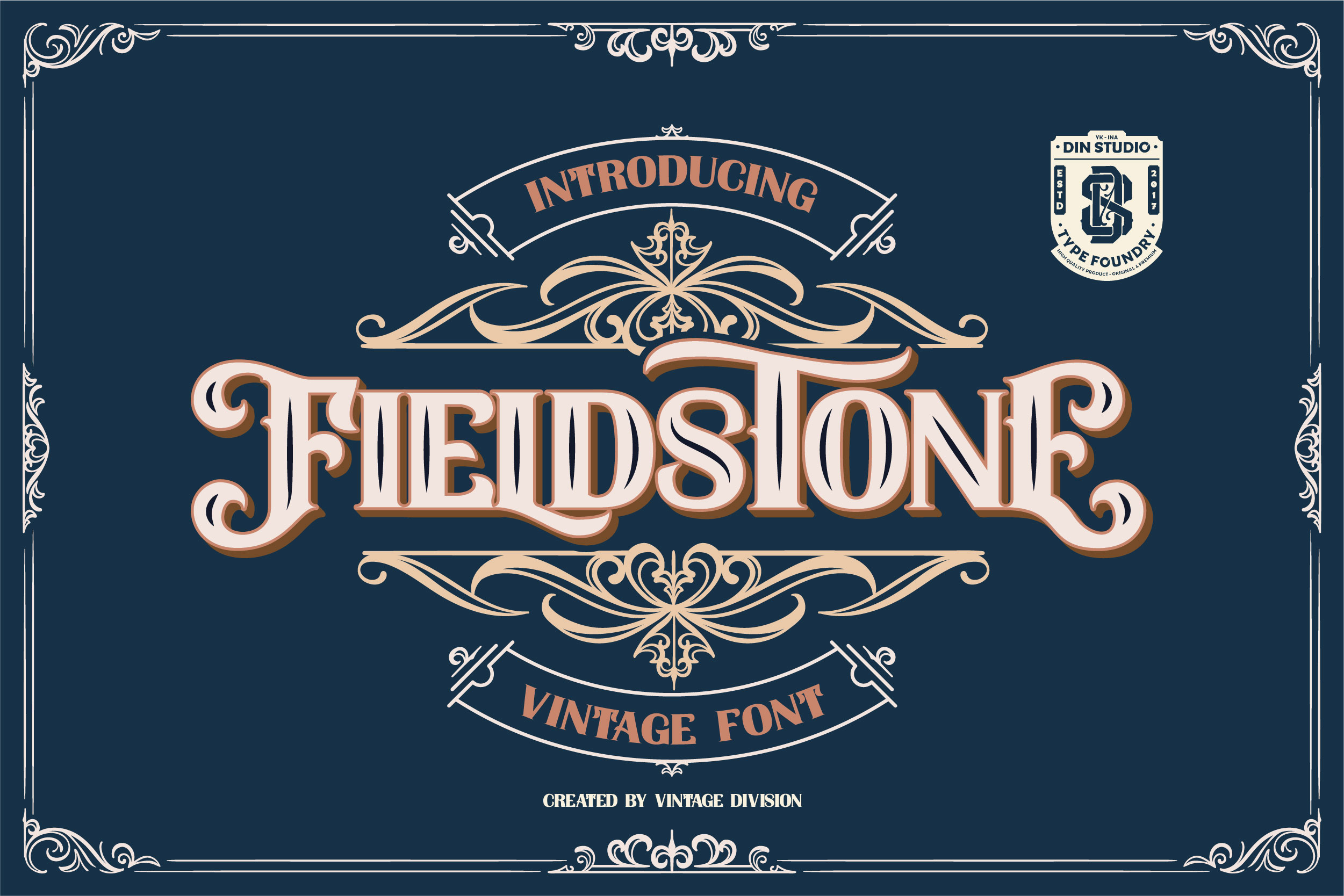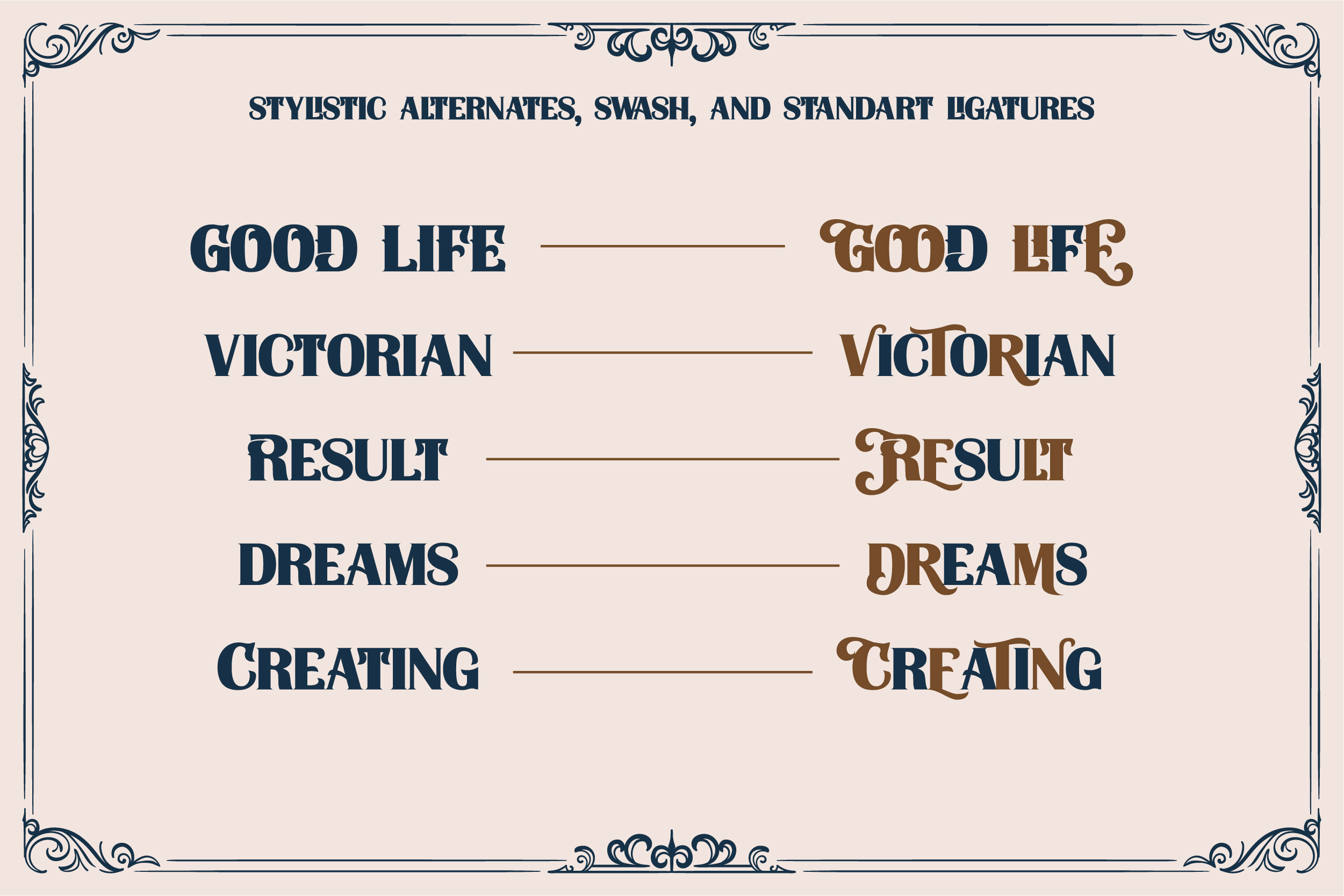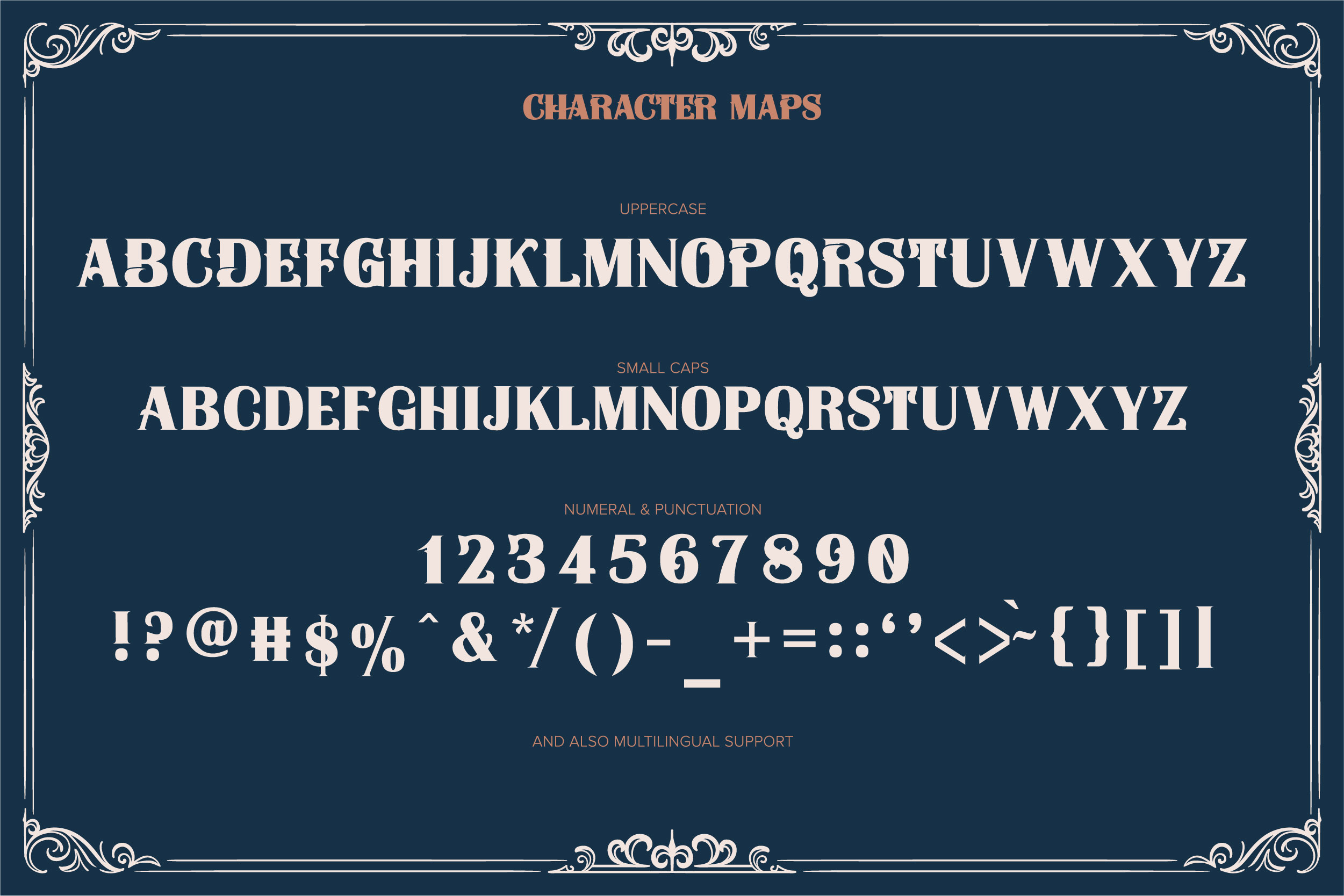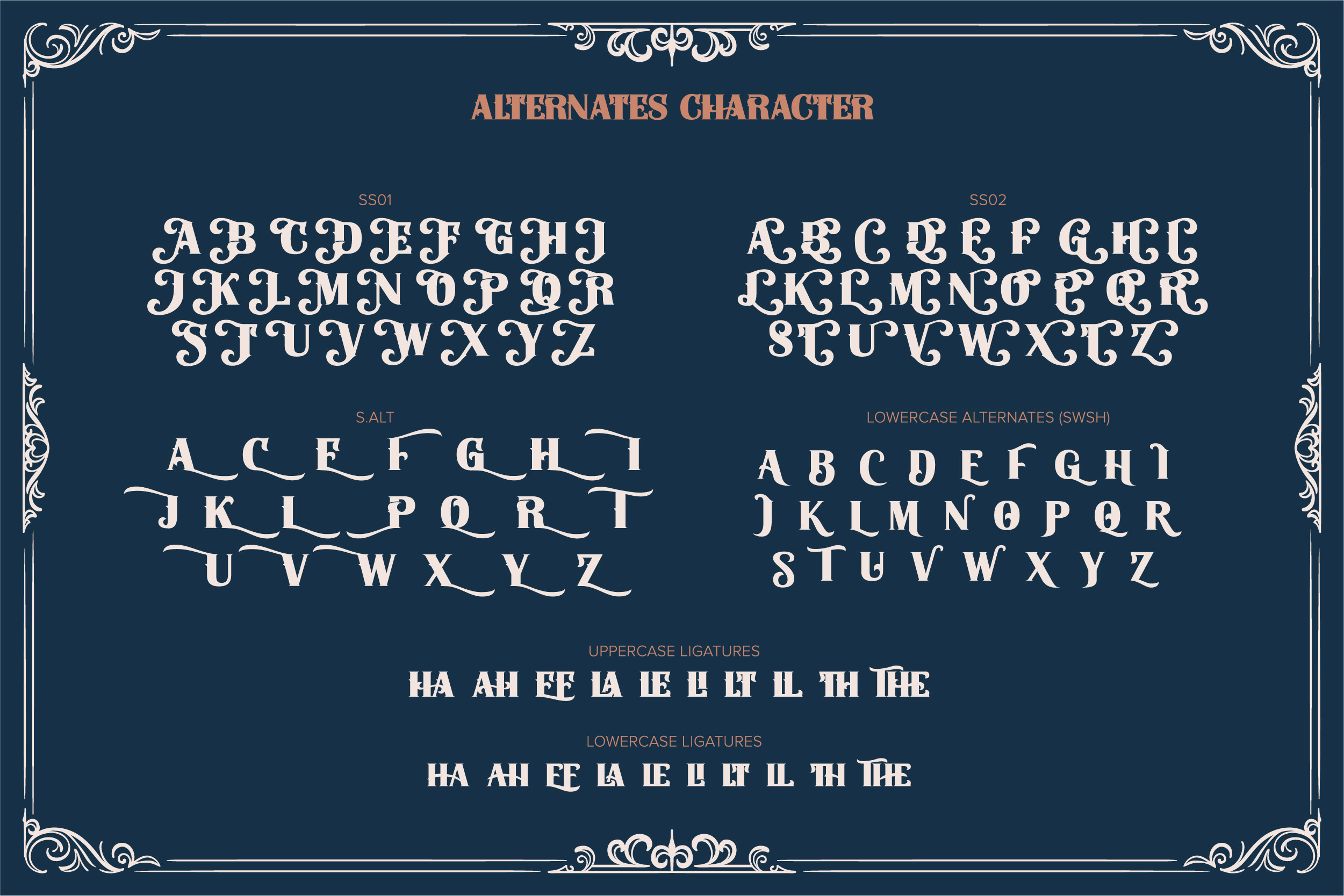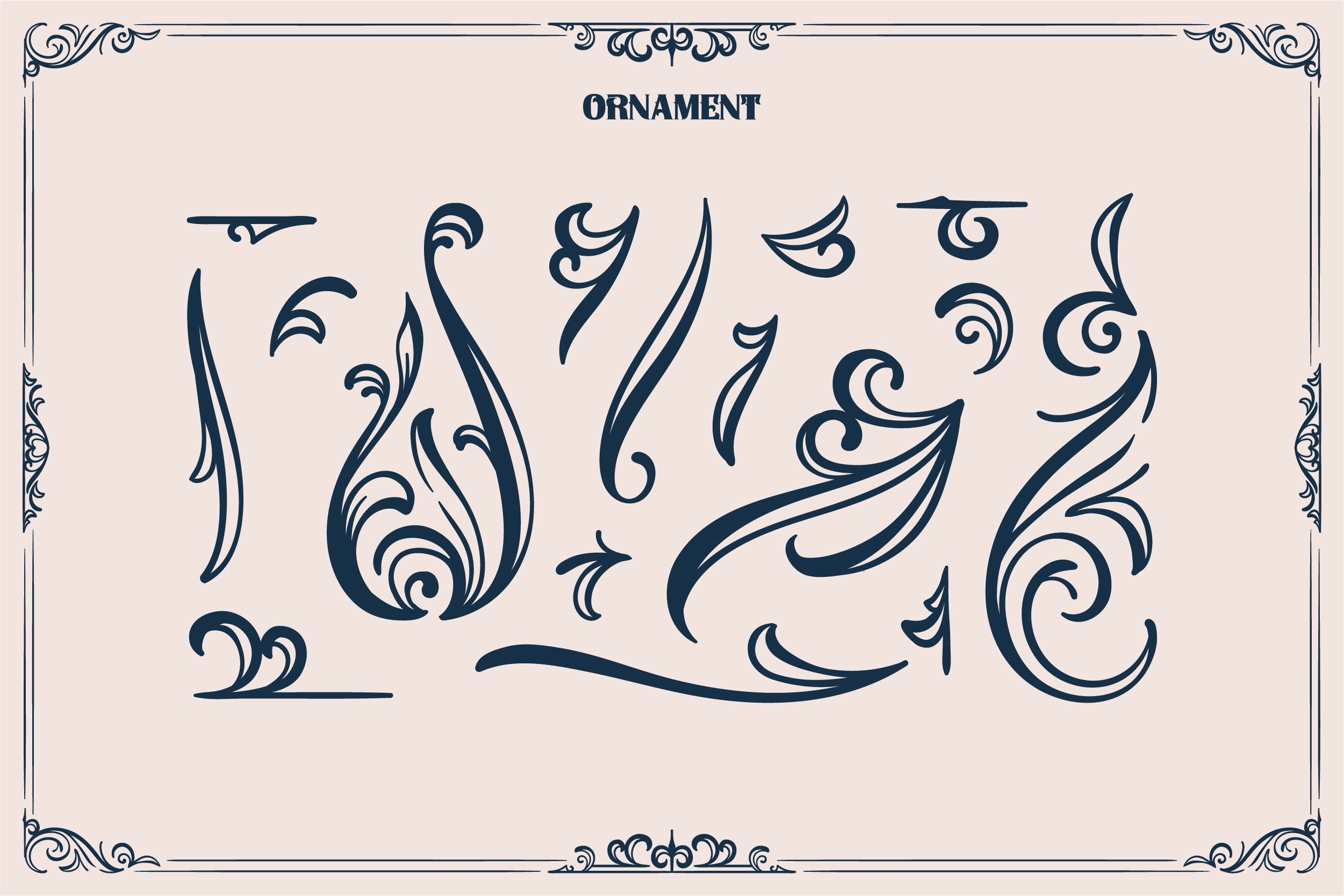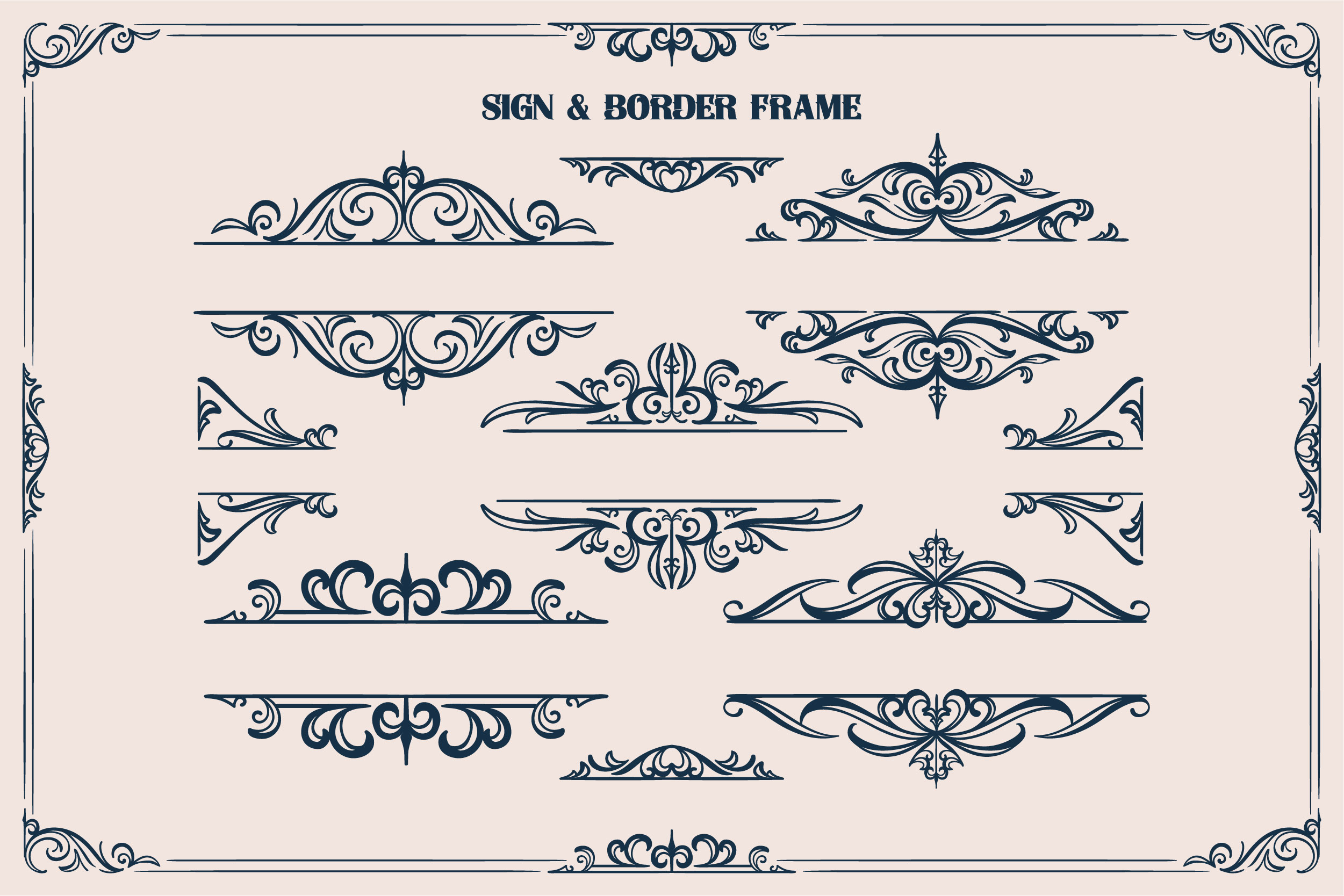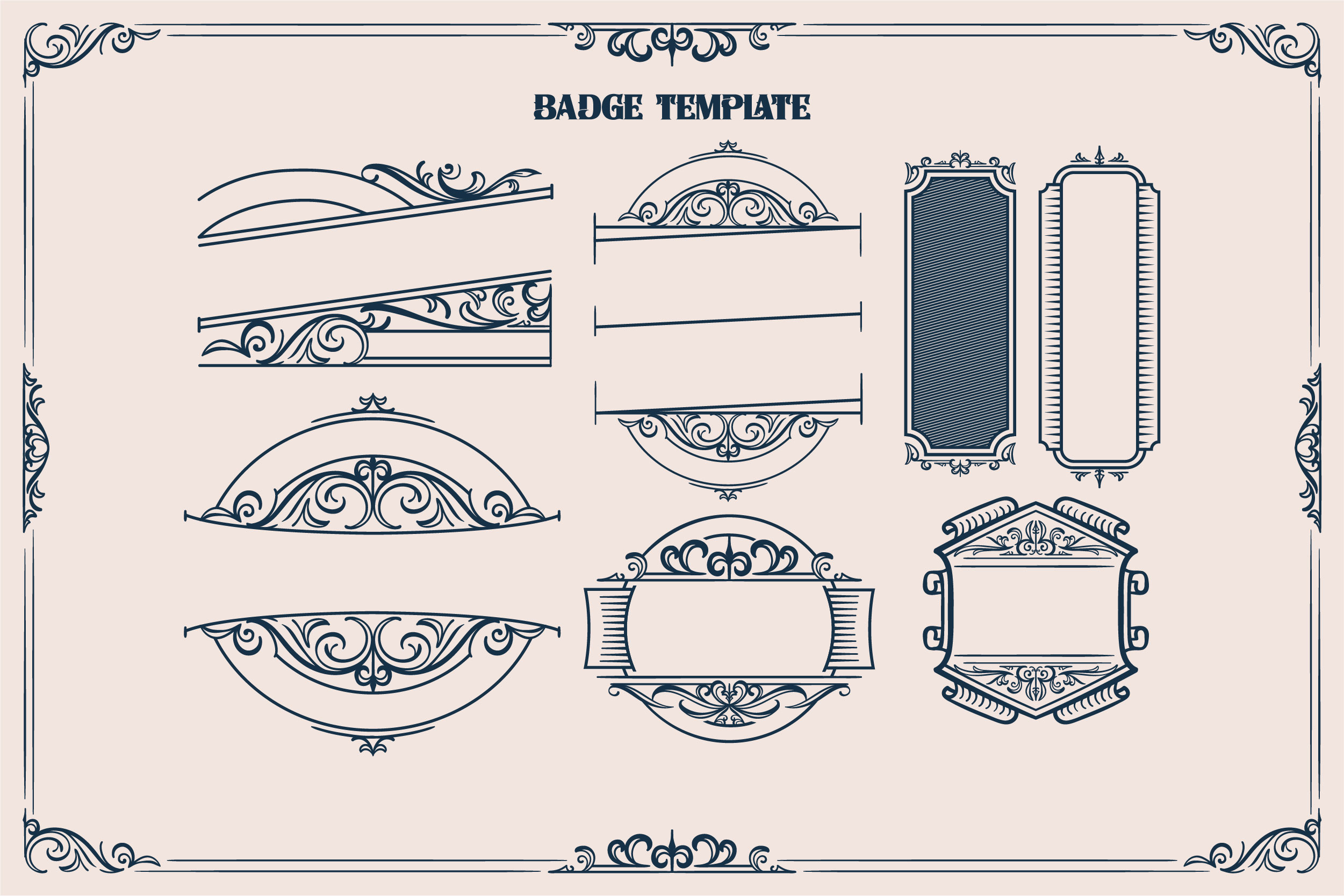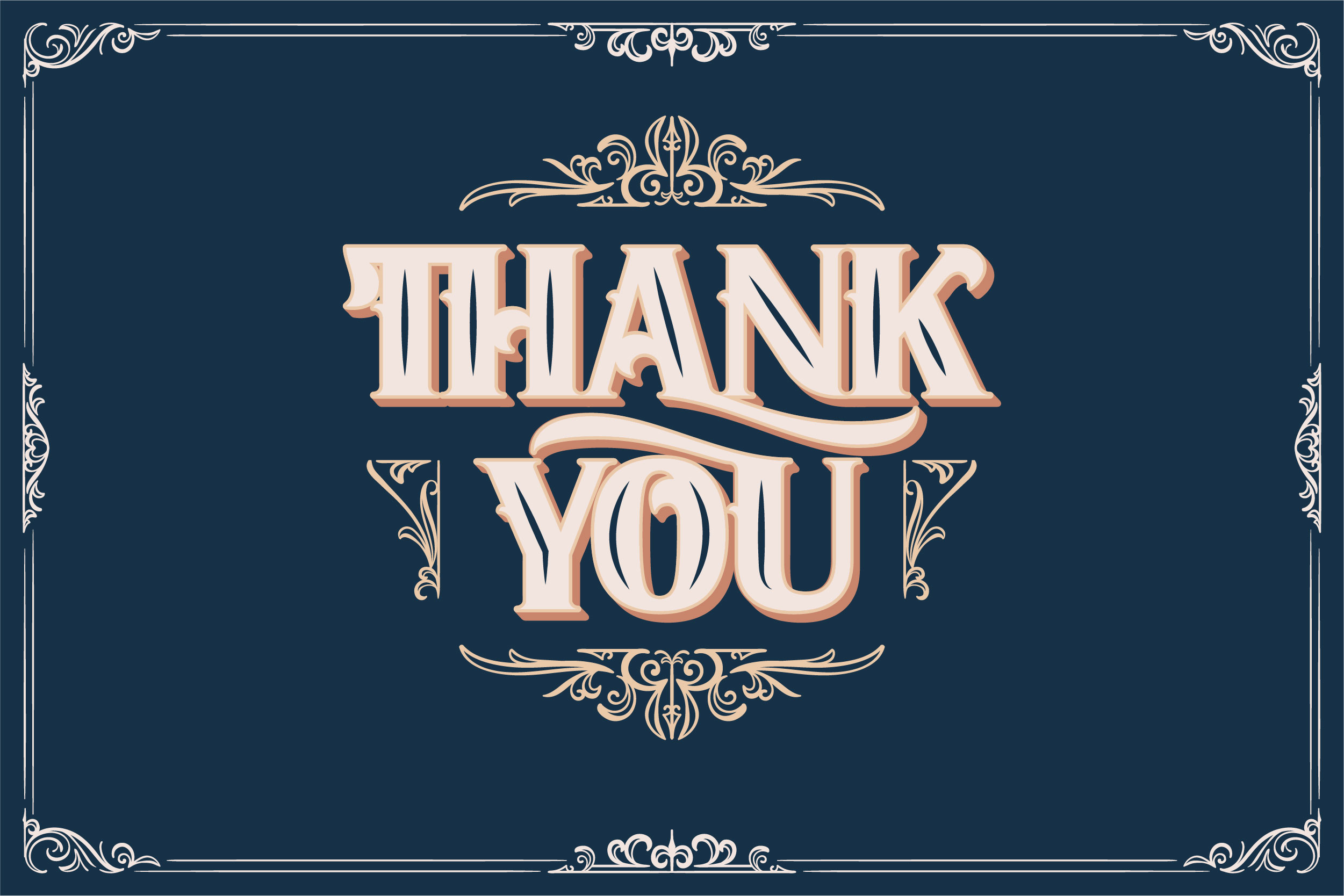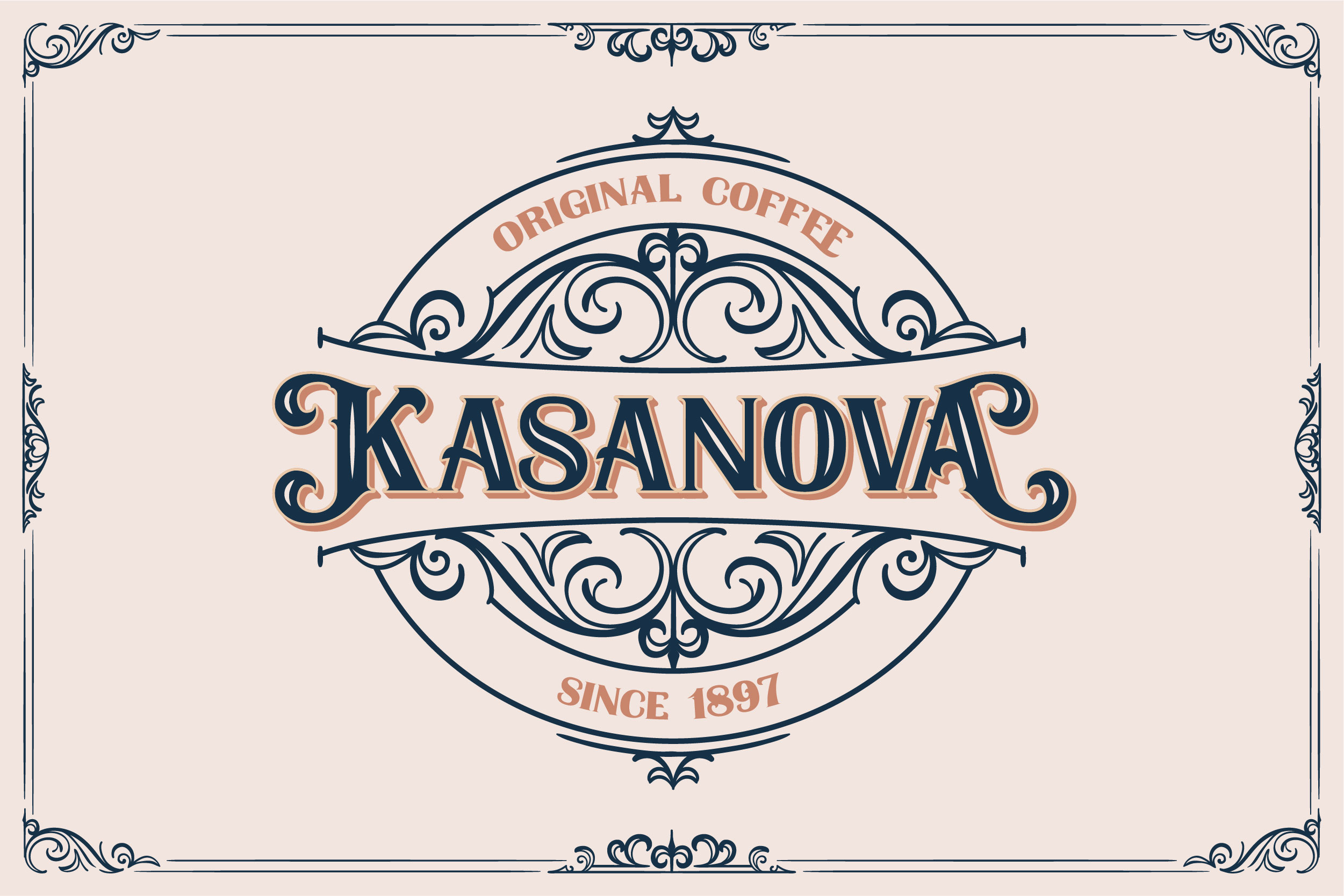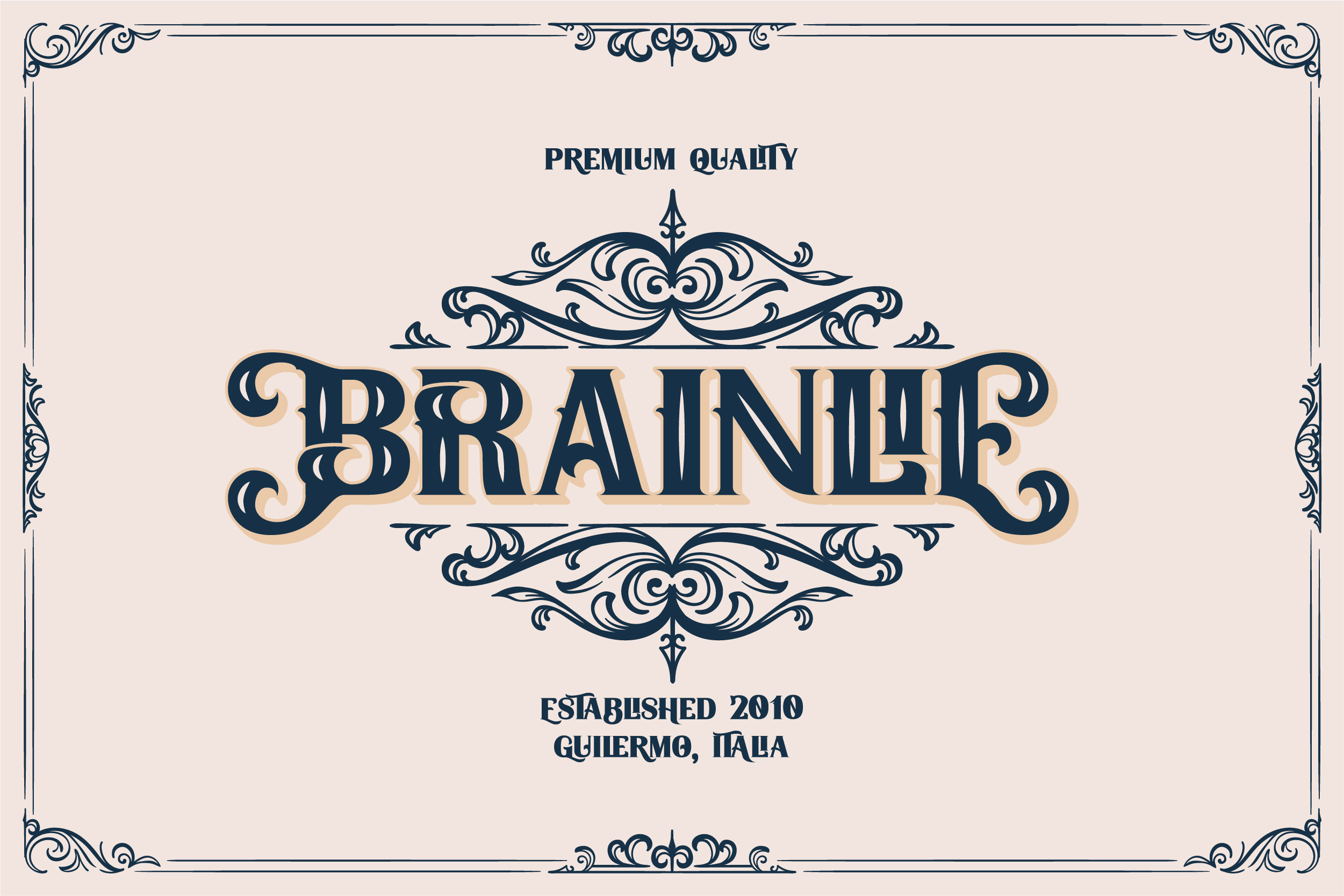
Fieldstone is an amazing display font. The font is suitable for any project like branding , lettering , tshirt print and many others. Find out more ways to use this font by taking a look at the font preview.
- Bonus Ornament